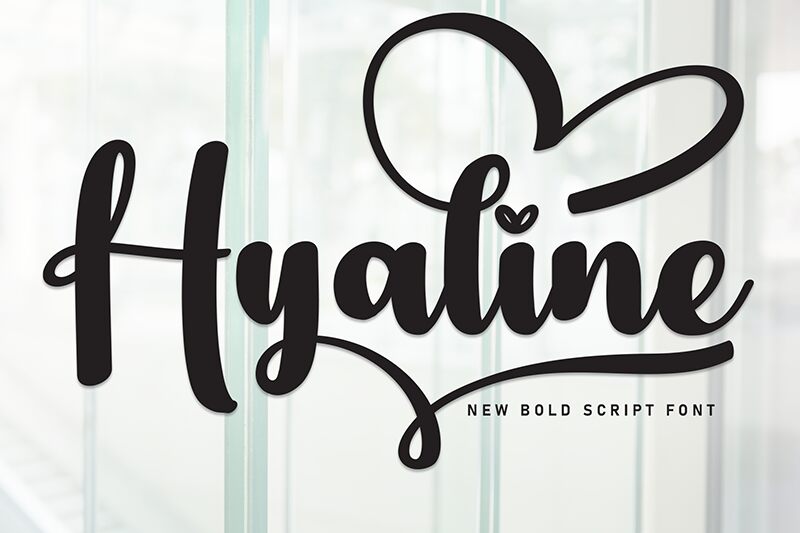
Hyaline
Hyaline font is a free handwriting script font made with care by Scratchones. This casual script’s flowing characters form elegant words that are easily readable while maintaining a modern urban style. Expressive letterforms bring more excitement to the text making this typeface one of the best picks for an audience that likes to see something different.
Projects that can benefit from including Hyaline are greeting cards, social media posts, website headers, and magazine headlines. More examples include t-shirts/posters’ typography, print packaging & branding projects, book covers, vinyl album covers among others.